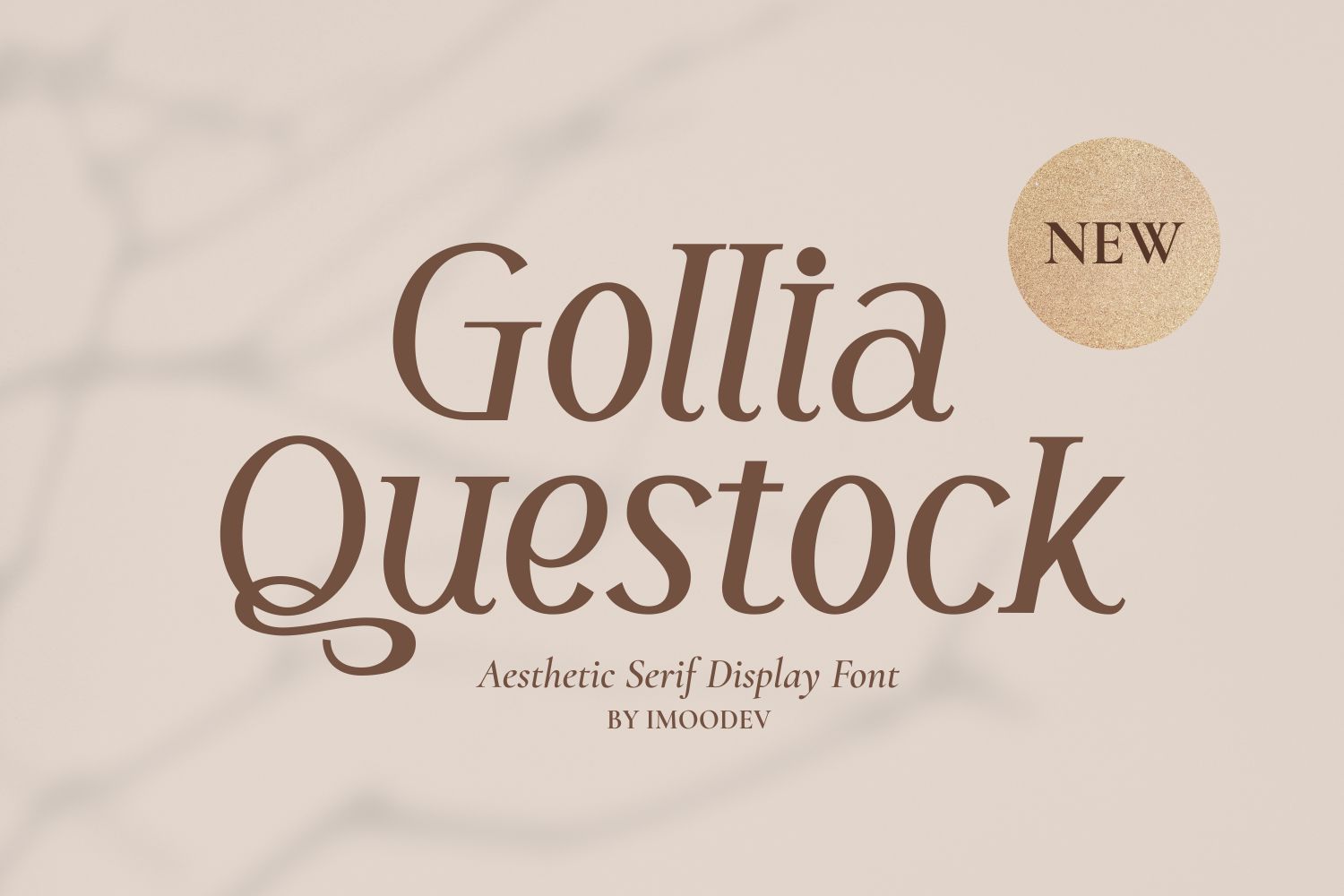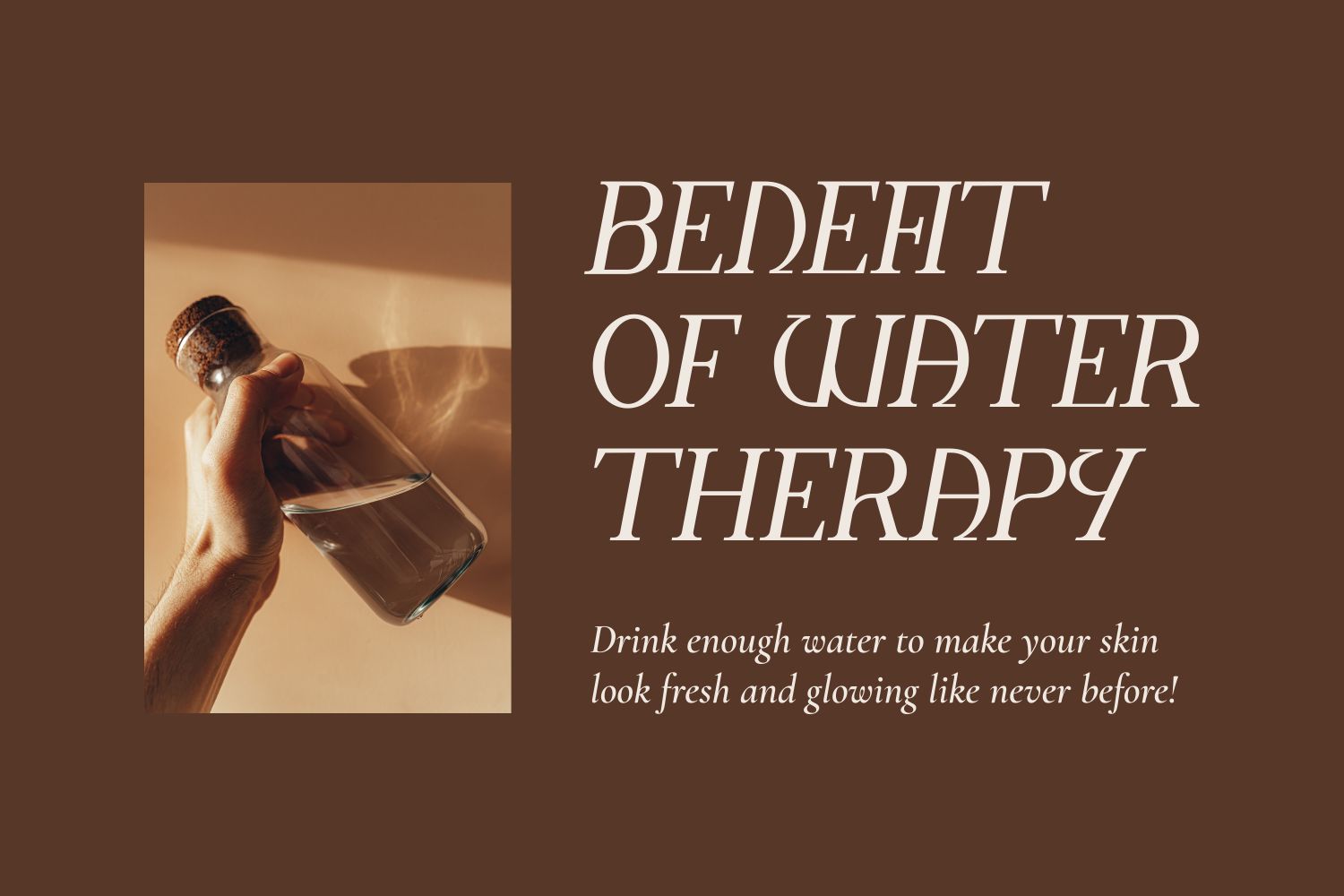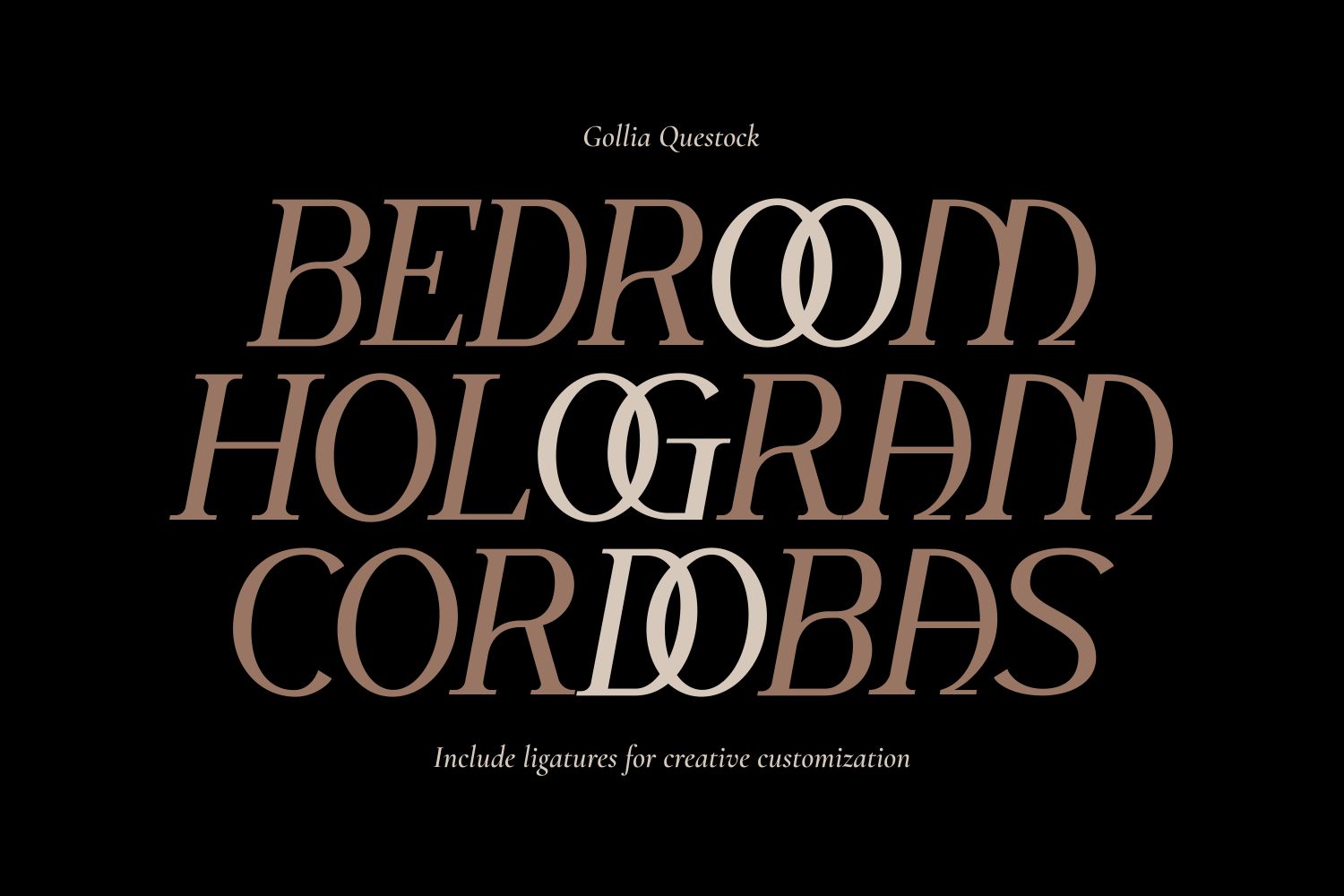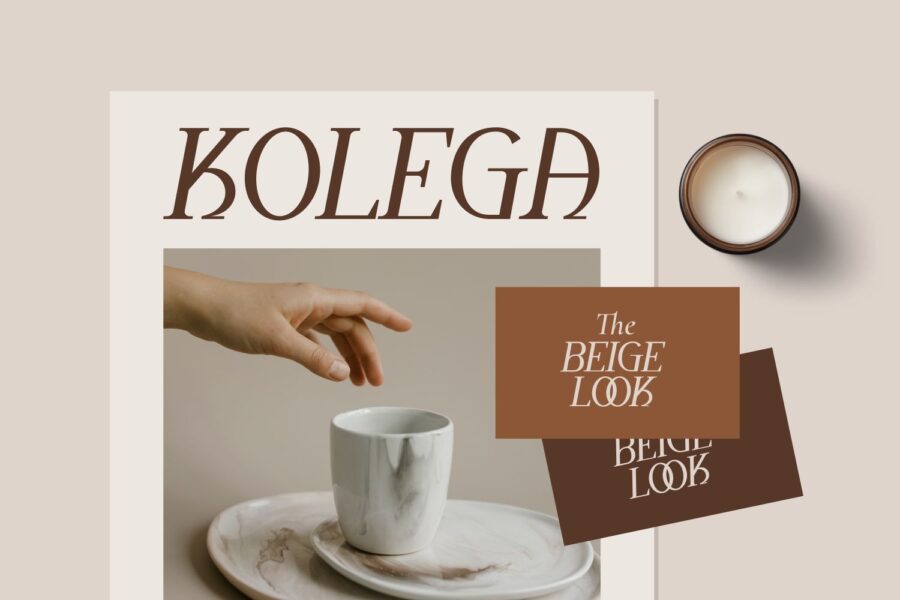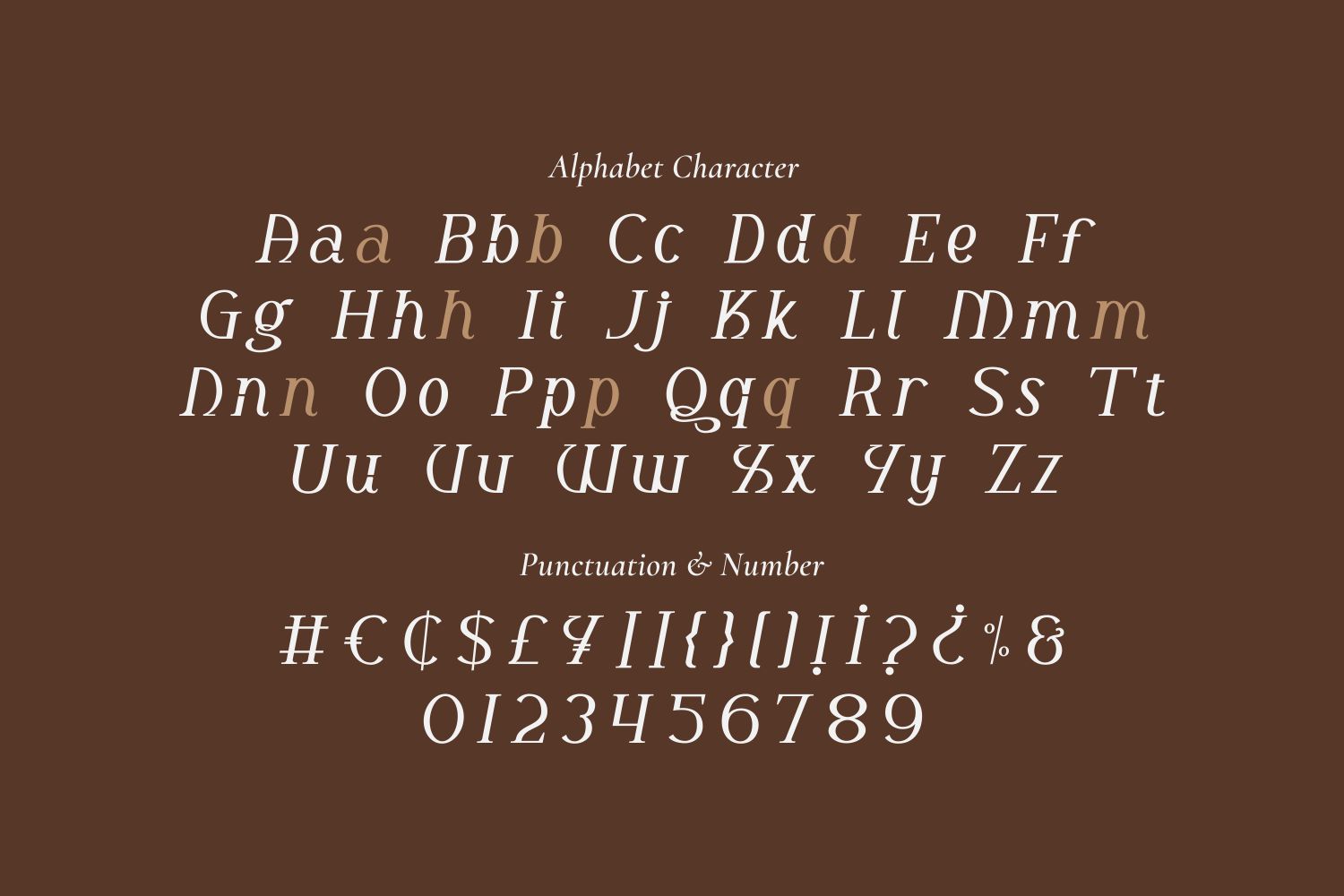
Gollia Questock font is an aesthetic serif display typeface that combines modern elegance with artistic curves. With its refined letterforms, graceful ligatures, and stylish flow, this font radiates sophistication, making it a perfect choice for high-end branding, editorial design, packaging, and lifestyle projects. Its delicate yet striking appearance adds a timeless charm to any creative work.
Designed with full uppercase, lowercase, numerals, punctuation, and multilingual support, Gollia Questock is versatile and ready to elevate a wide range of design needs. From beauty and fashion branding to magazines, invitations, and product labels, this font provides a refined aesthetic that communicates elegance, creativity, and professionalism.
Gollia Questock